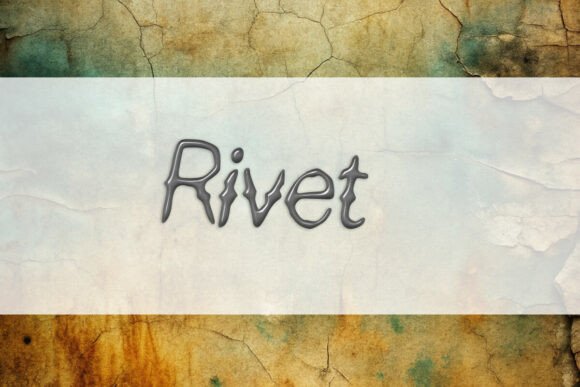
Introduction to Rivet Font
Have you ever found yourself staring at a blank page, desperate to bring your creative vision to life? That’s where the Rivet Font comes in – a game-changing design resource that can take your projects from bland to grand. This versatile font is the perfect addition to any creative project, from bold statements on t-shirts and stickers to intricate SVG files and dynamic magazine layouts.
As a designer, you’re constantly on the lookout for high-quality fonts that can elevate your work and leave a lasting impression. The Rivet Font delivers on both fronts, offering a unique and stylish aesthetic that’s sure to turn heads. Whether you’re working on a branding project, creating social media visuals, or crafting custom greeting cards, this font is a must-have in your design arsenal.
Key Features of Rivet Font
- High-quality font with a unique industrial design aesthetic, perfect for creative projects.
- Rivet Font is designed to be highly scalable, with a resolution of up to 300 DPI, making it ideal for large-scale designs.
- Its unique design makes it perfect for use in industrial, mechanical, and technical designs, adding a touch of creativity to any project.
Honest Review: Rivet Font
I recently stumbled upon the Rivet Font, a high-quality design resource that caught my attention. As a designer, I’m always on the lookout for unique and versatile fonts to elevate my creative projects. The Rivet Font definitely delivers.
- ✨ The font is highly customizable, making it perfect for a wide range of creative projects.
- ⚠️ Some users may find the font’s unique design style to be too bold or overpowering.
Rivet Font
Rivet Font is a high-quality, free download that can be used for a variety of creative projects. With its unique design and transparent background, it’s perfect for designers looking to add a touch of elegance to their work.
Rivet Font is perfect for a variety of design projects, including:
- Marketing materials and advertisements